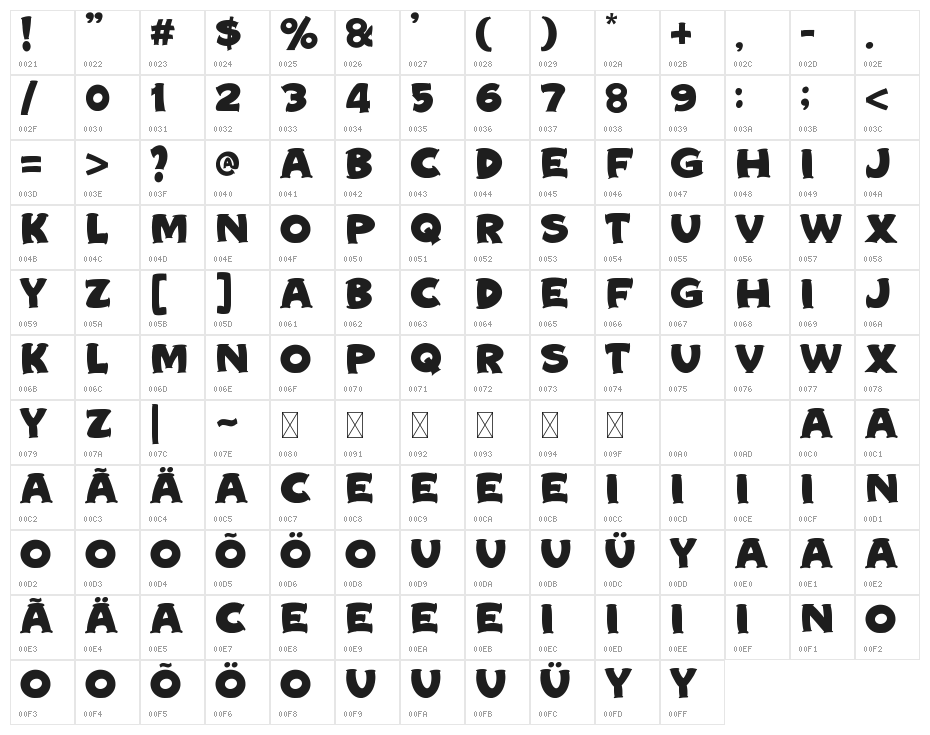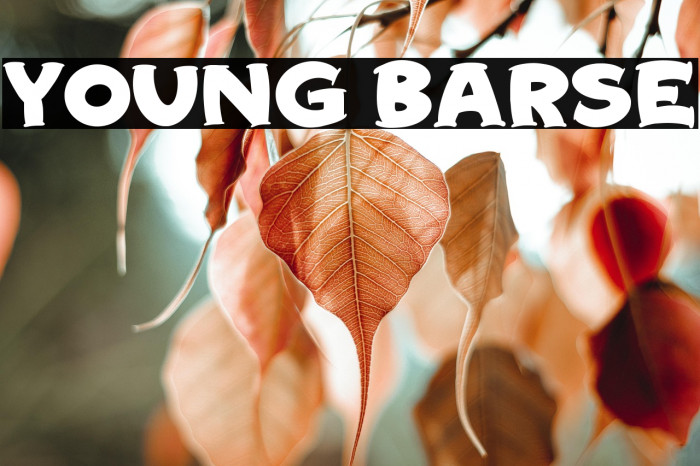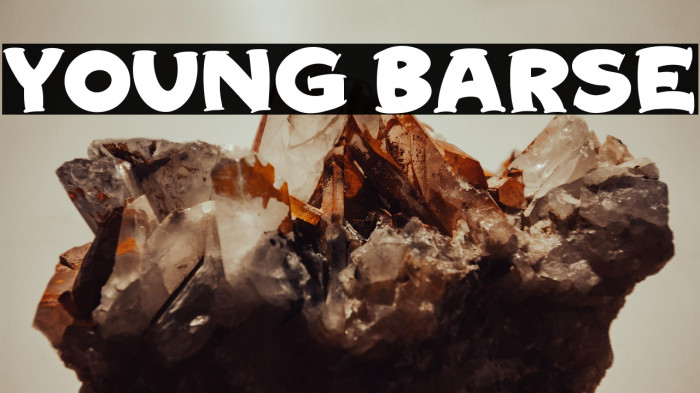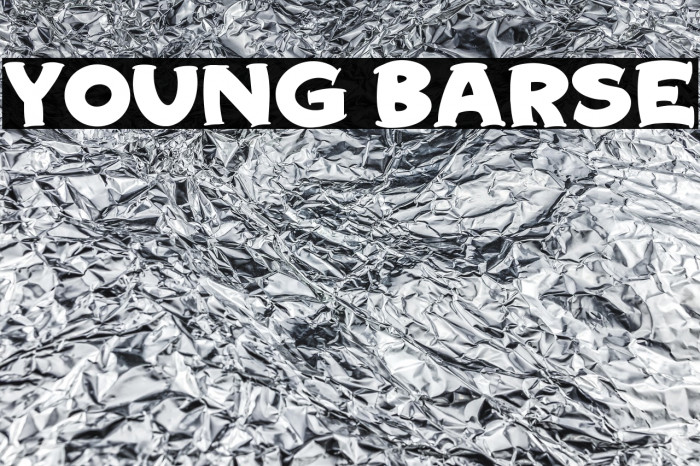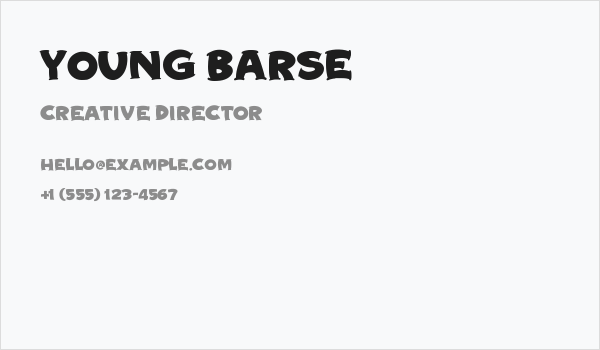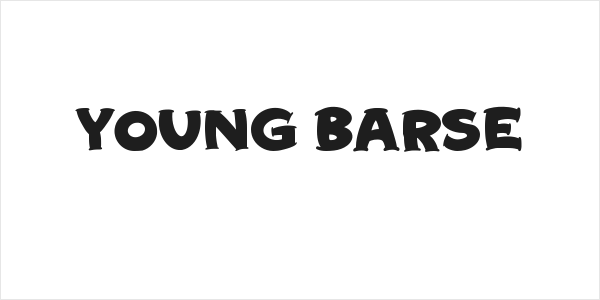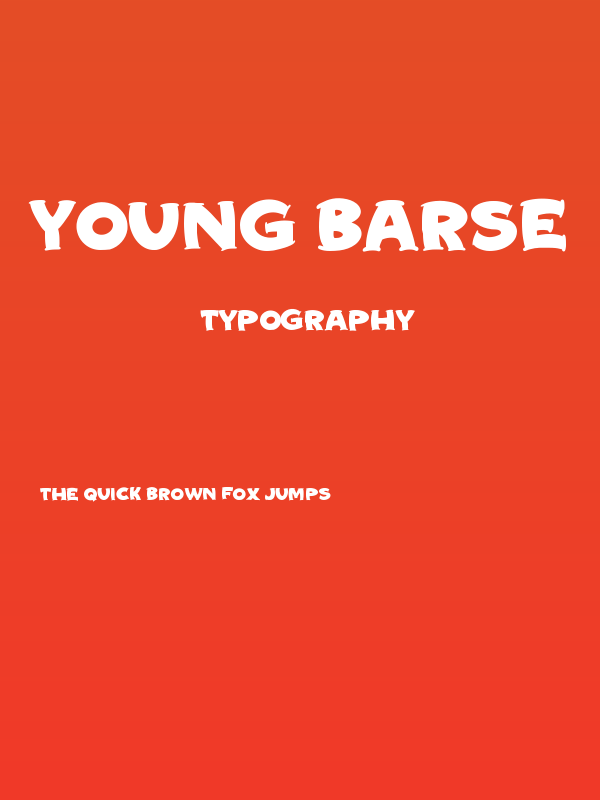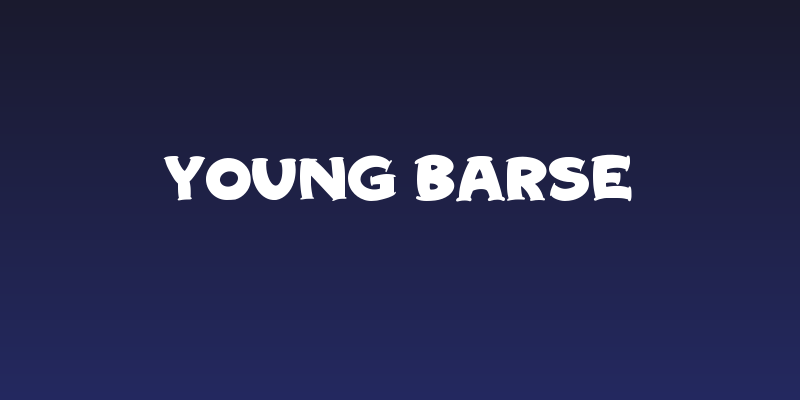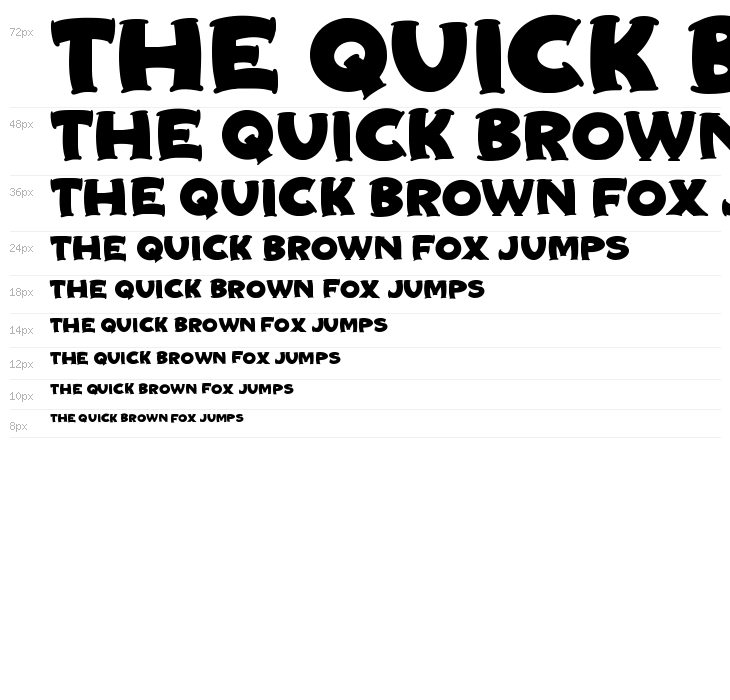
Young Barse Font
Young Barse Description
This font features bold, rounded characters with a playful and dynamic appearance. The strokes are thick and consistent, giving it a strong presence. The letters have a slight slant, adding a sense of motion and energy. The overall design is chunky and robust, making it highly legible even at smaller sizes. The numbers and special characters maintain the same bold and rounded style, ensuring uniformity across all glyphs. This font's unique style makes it stand out, with a friendly and approachable feel that is both modern and versatile.
| Overall Style | Playful, Modern |
| Proposed Projects | Ideal for children's books, playful branding, posters, and social media graphics. |